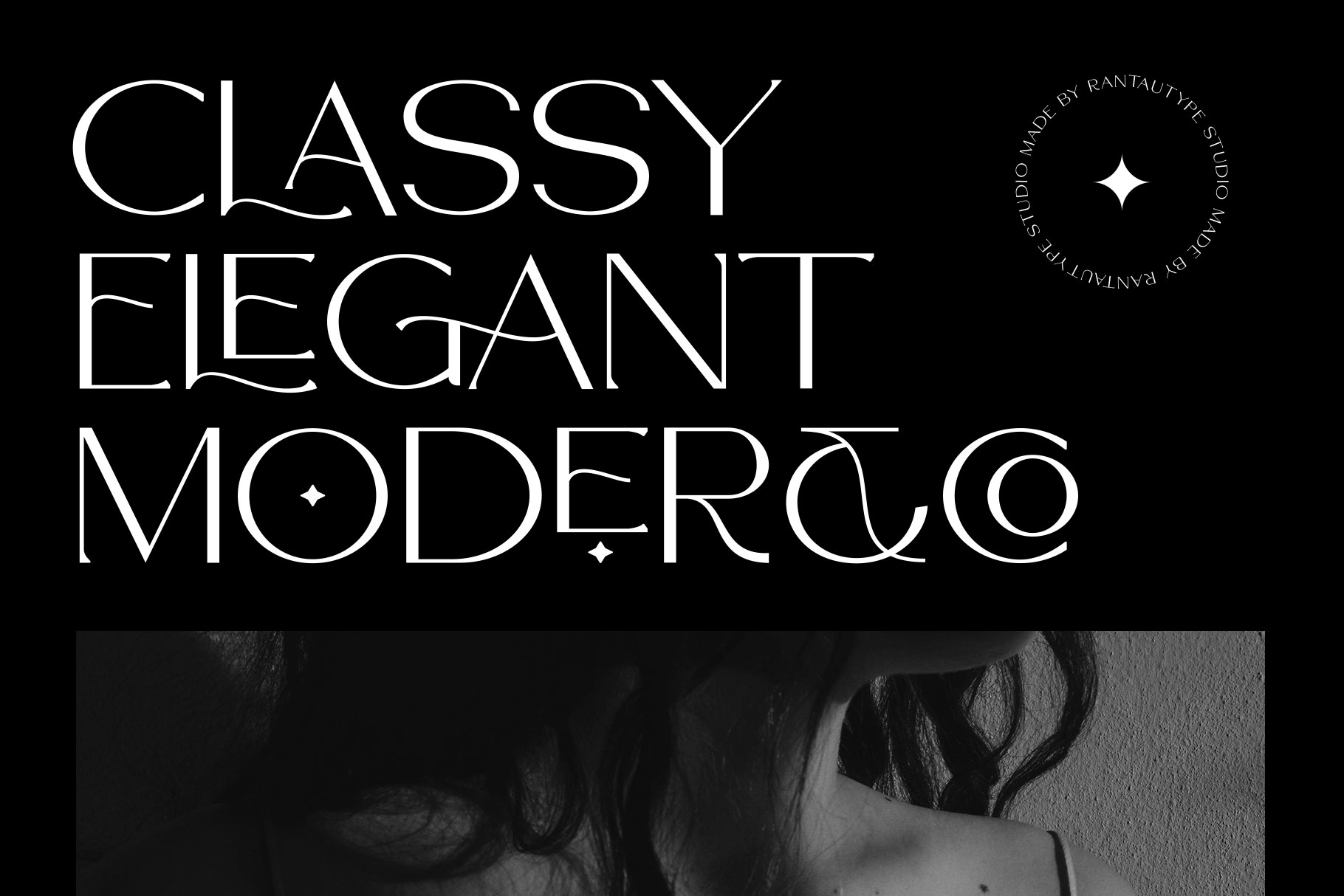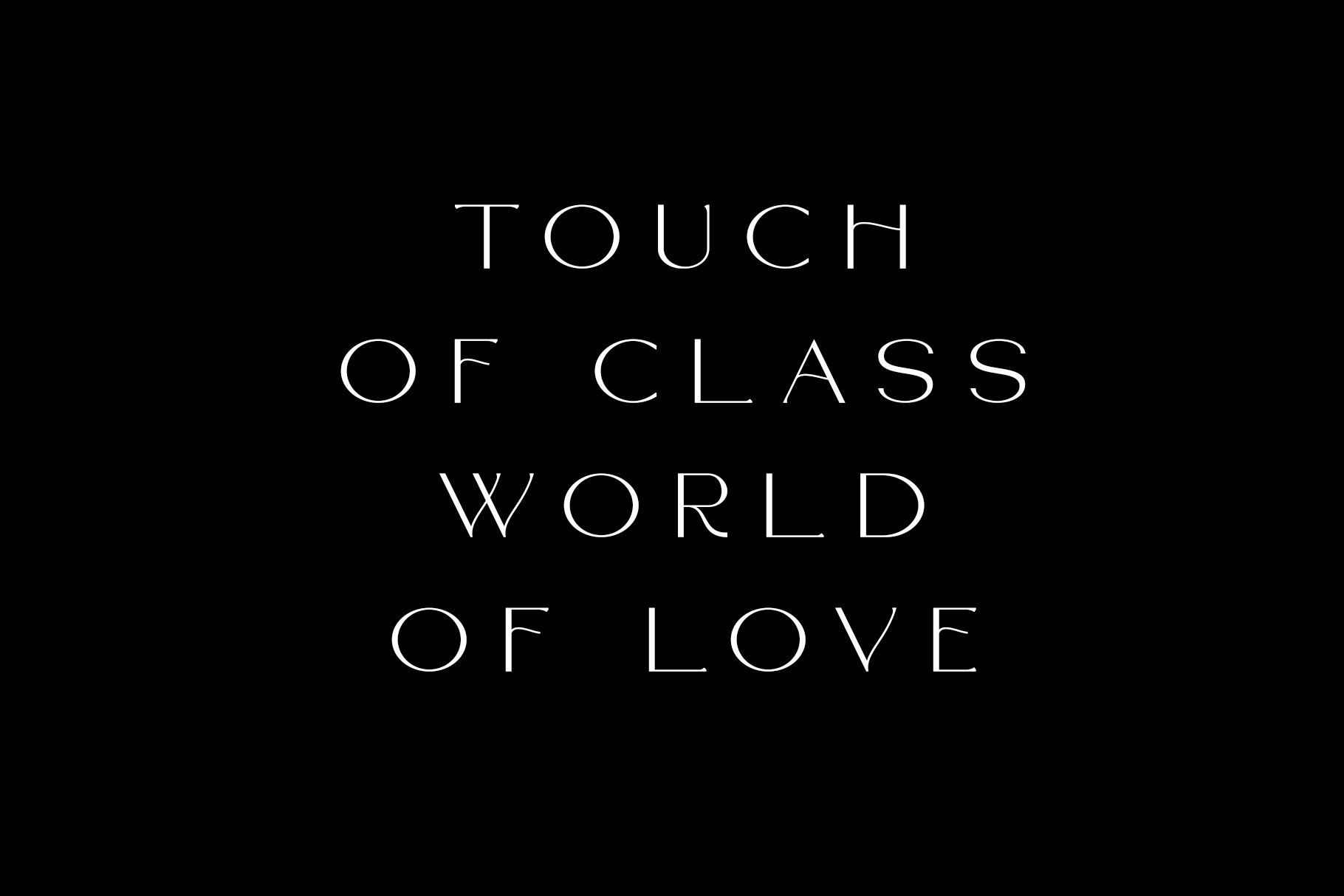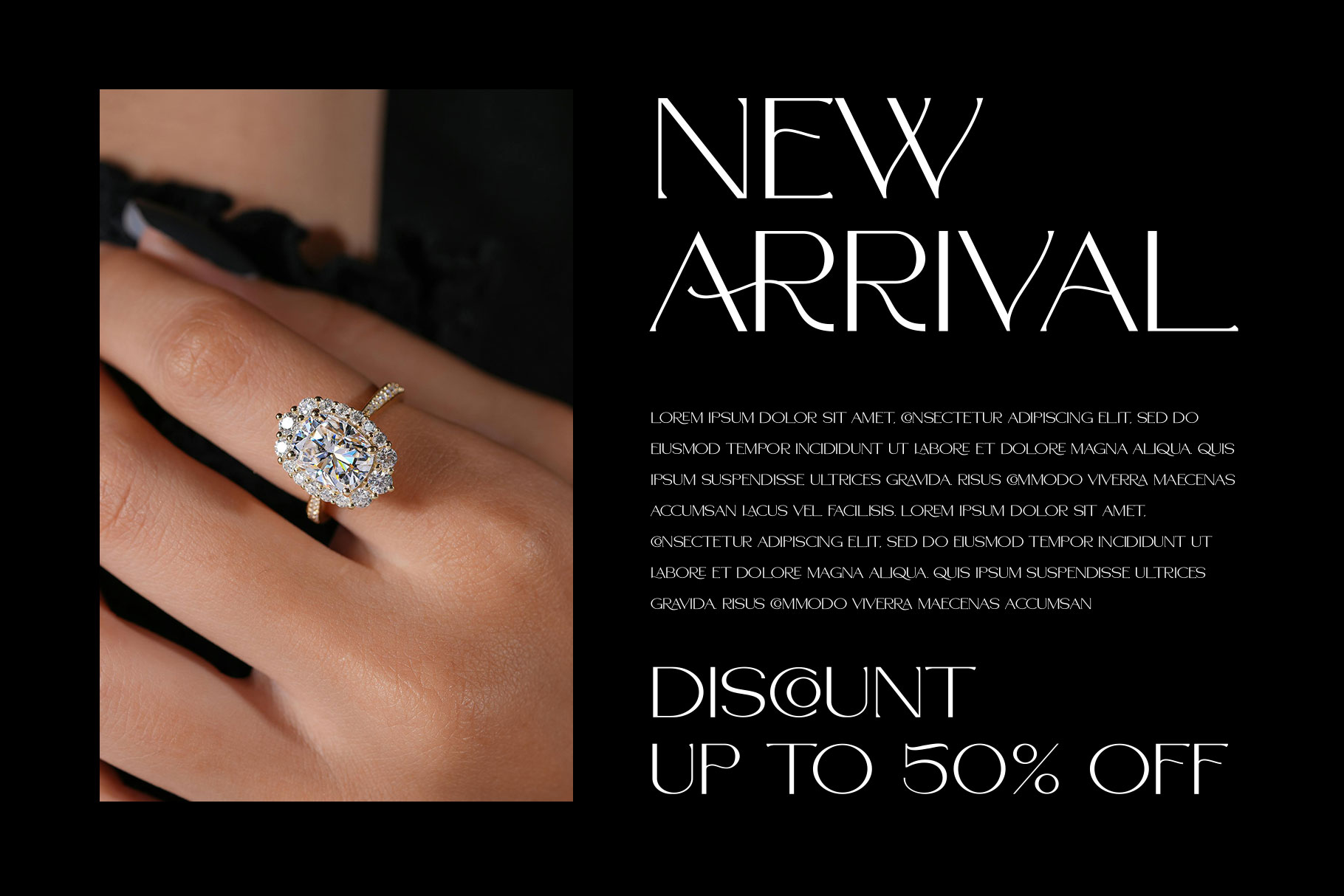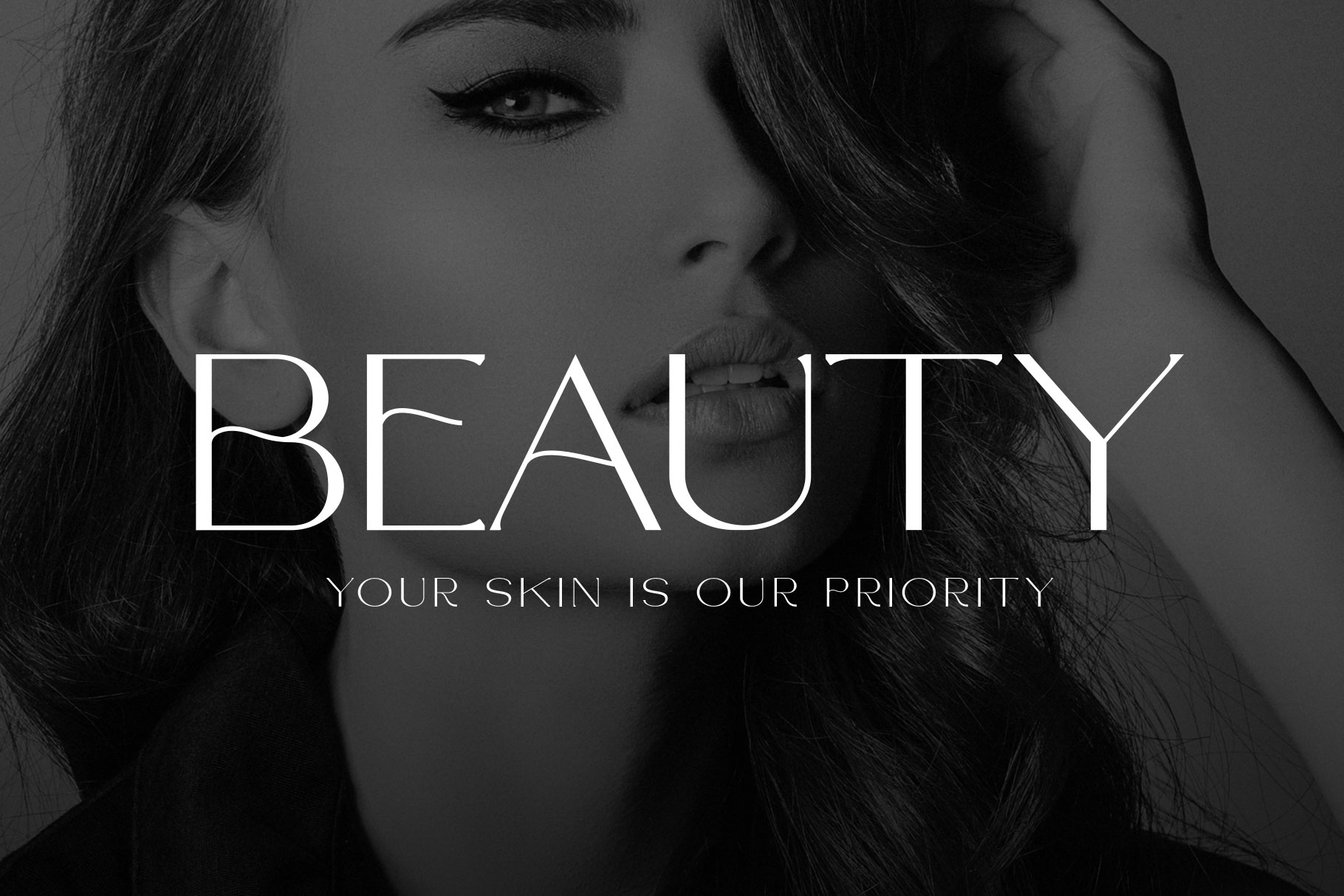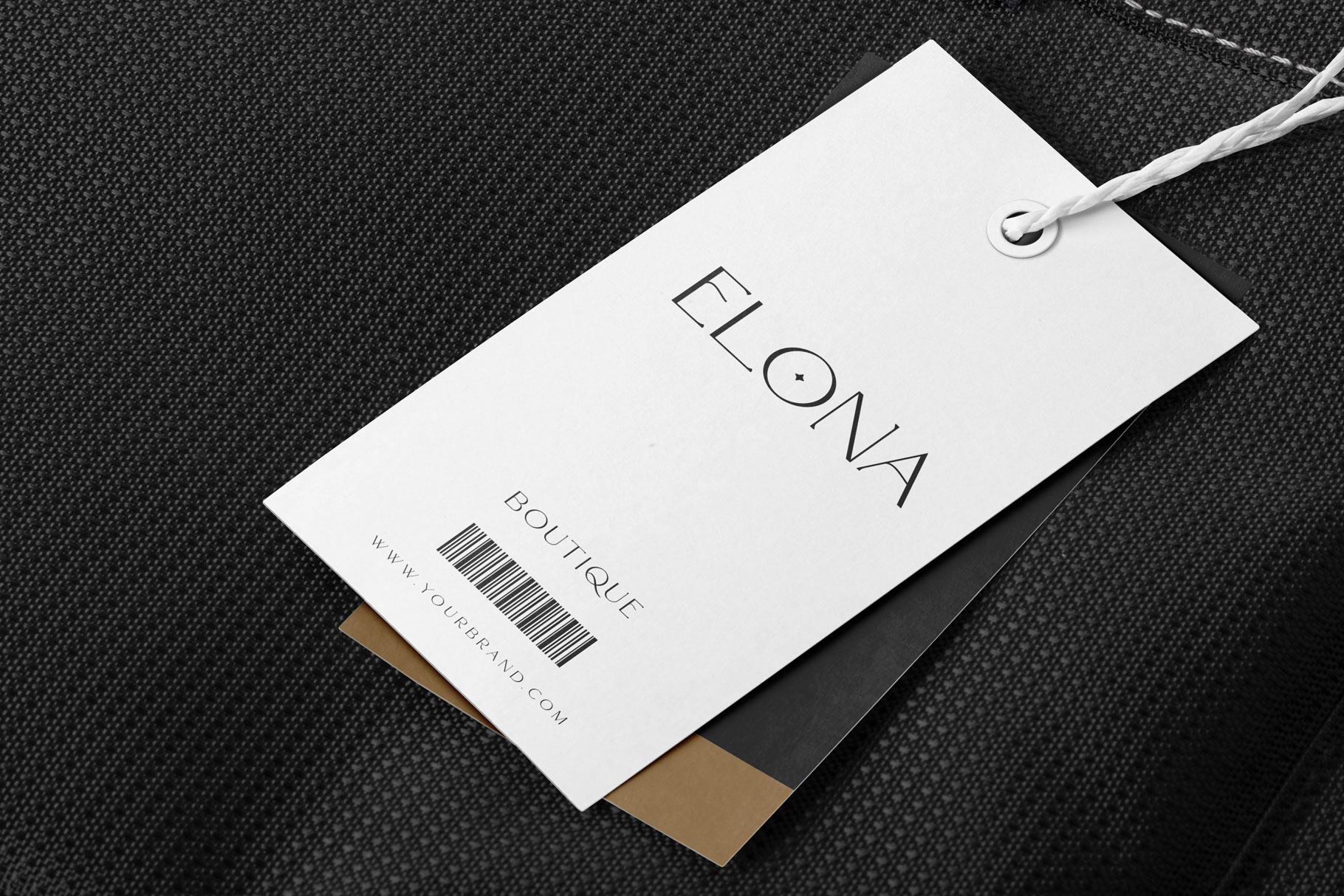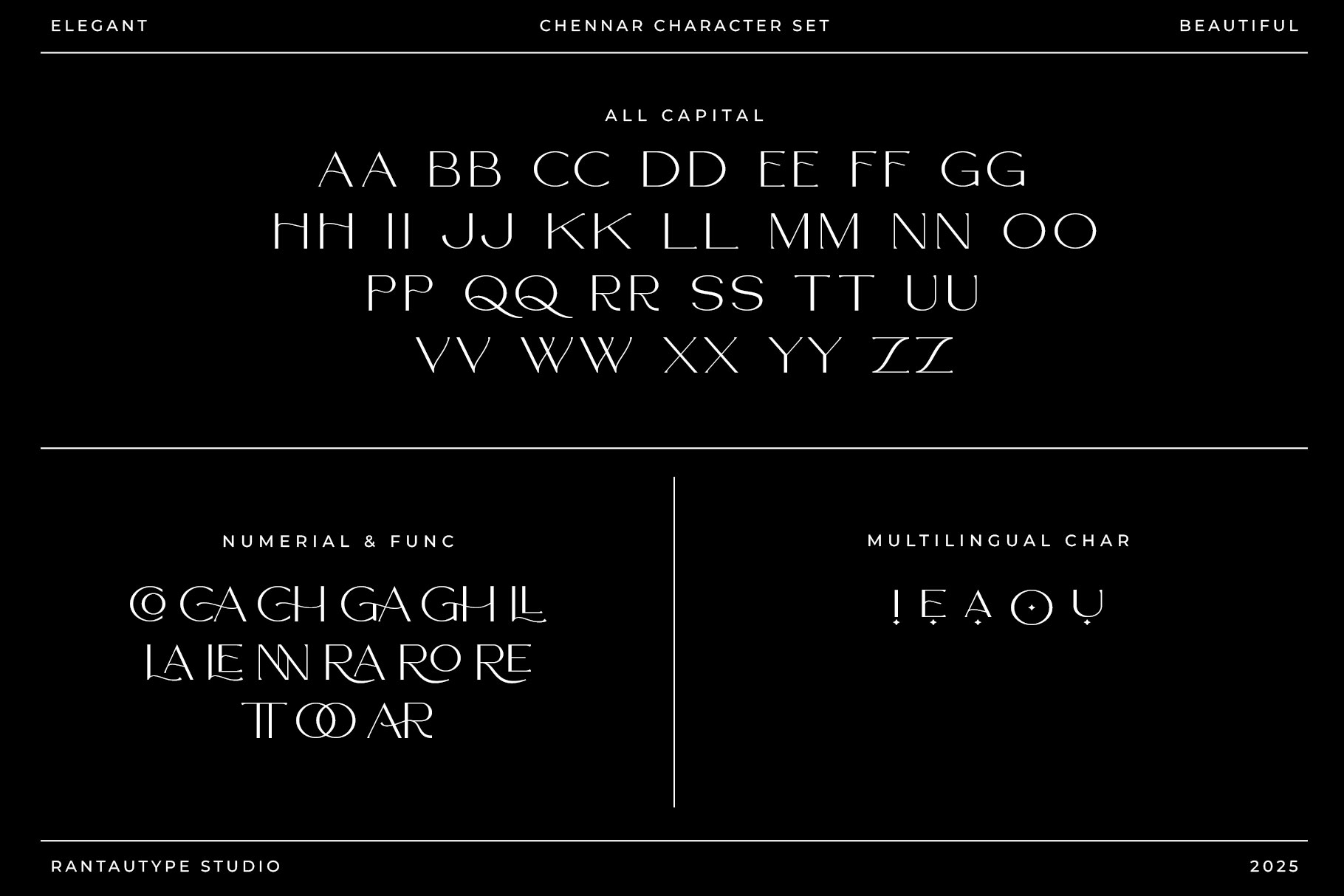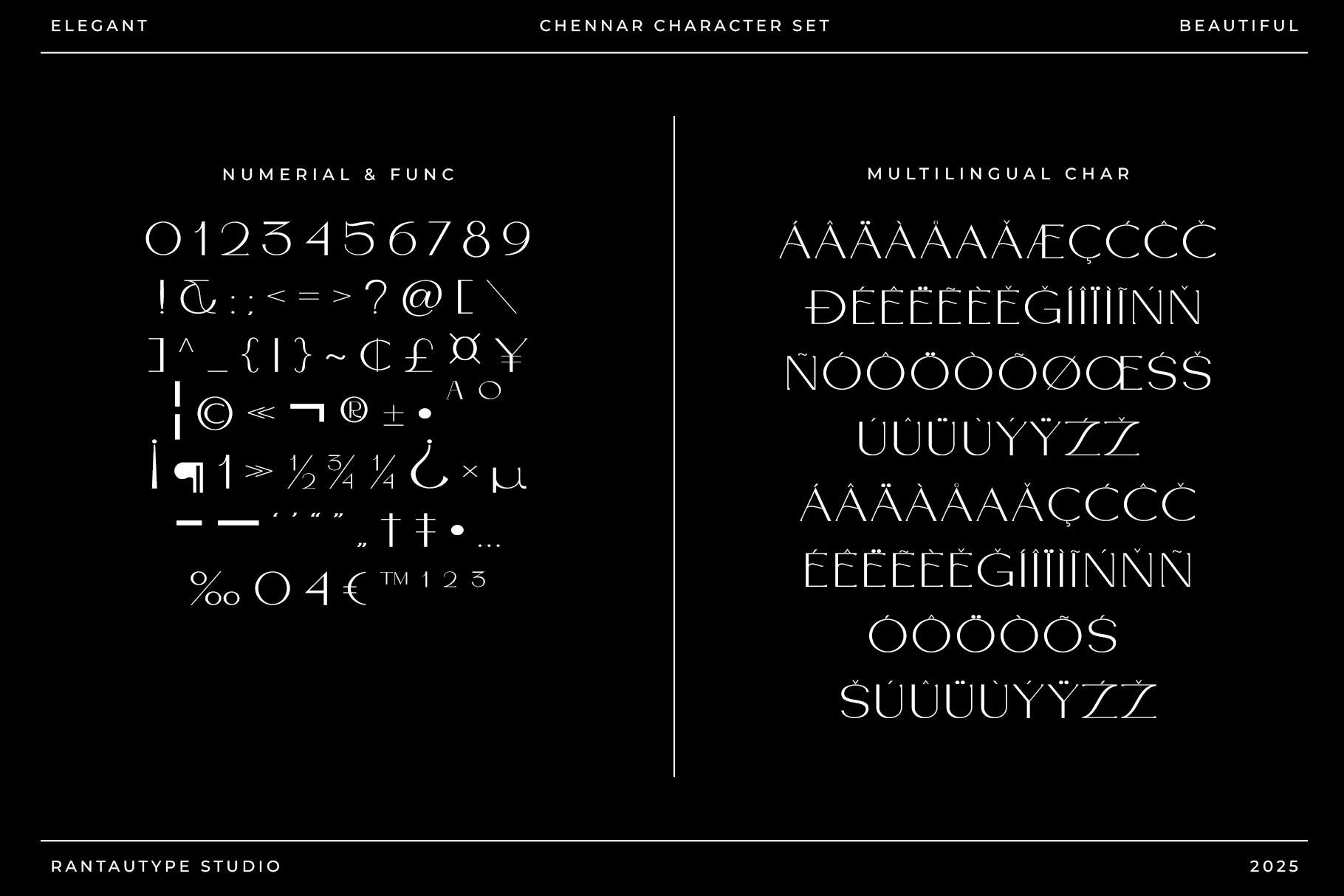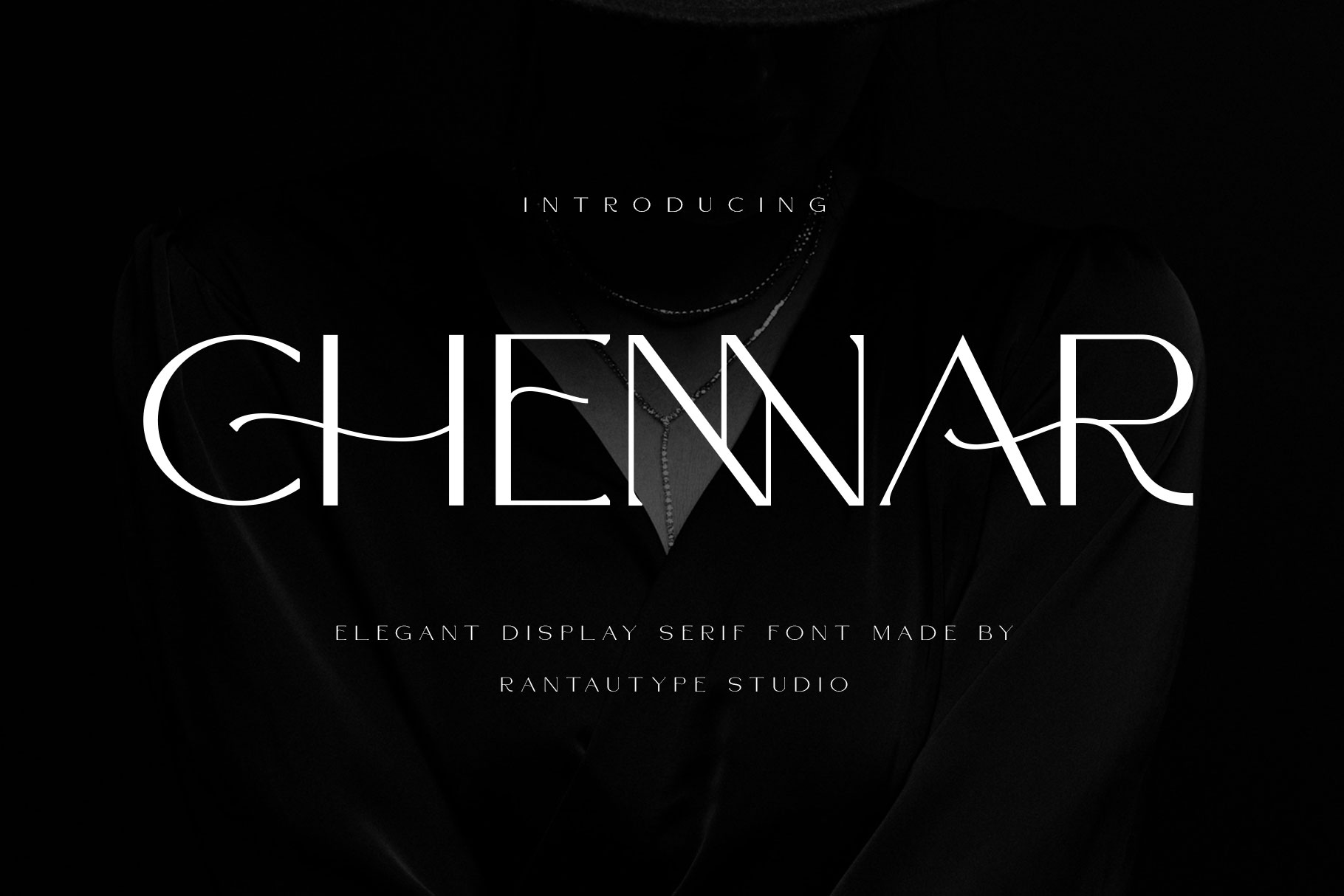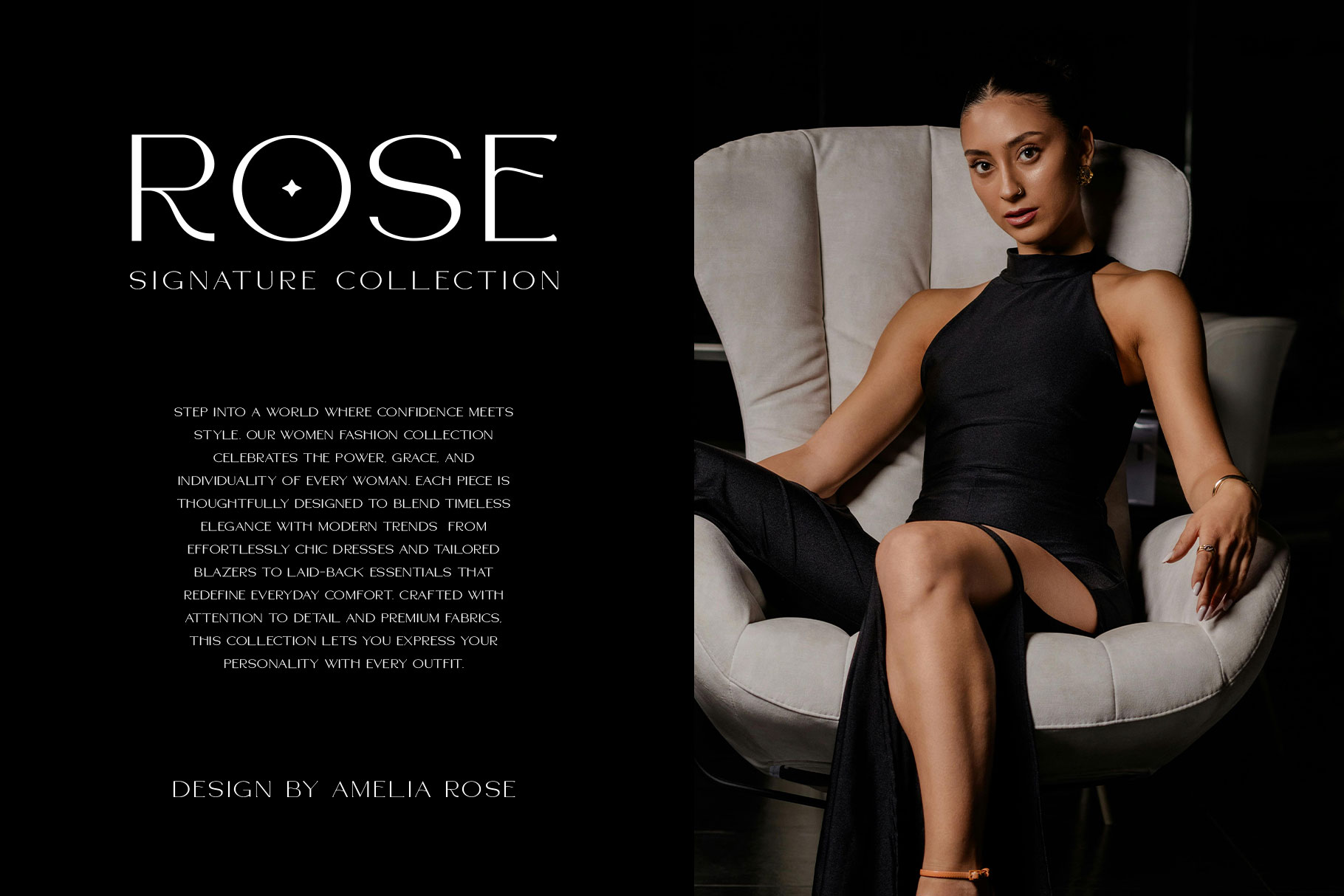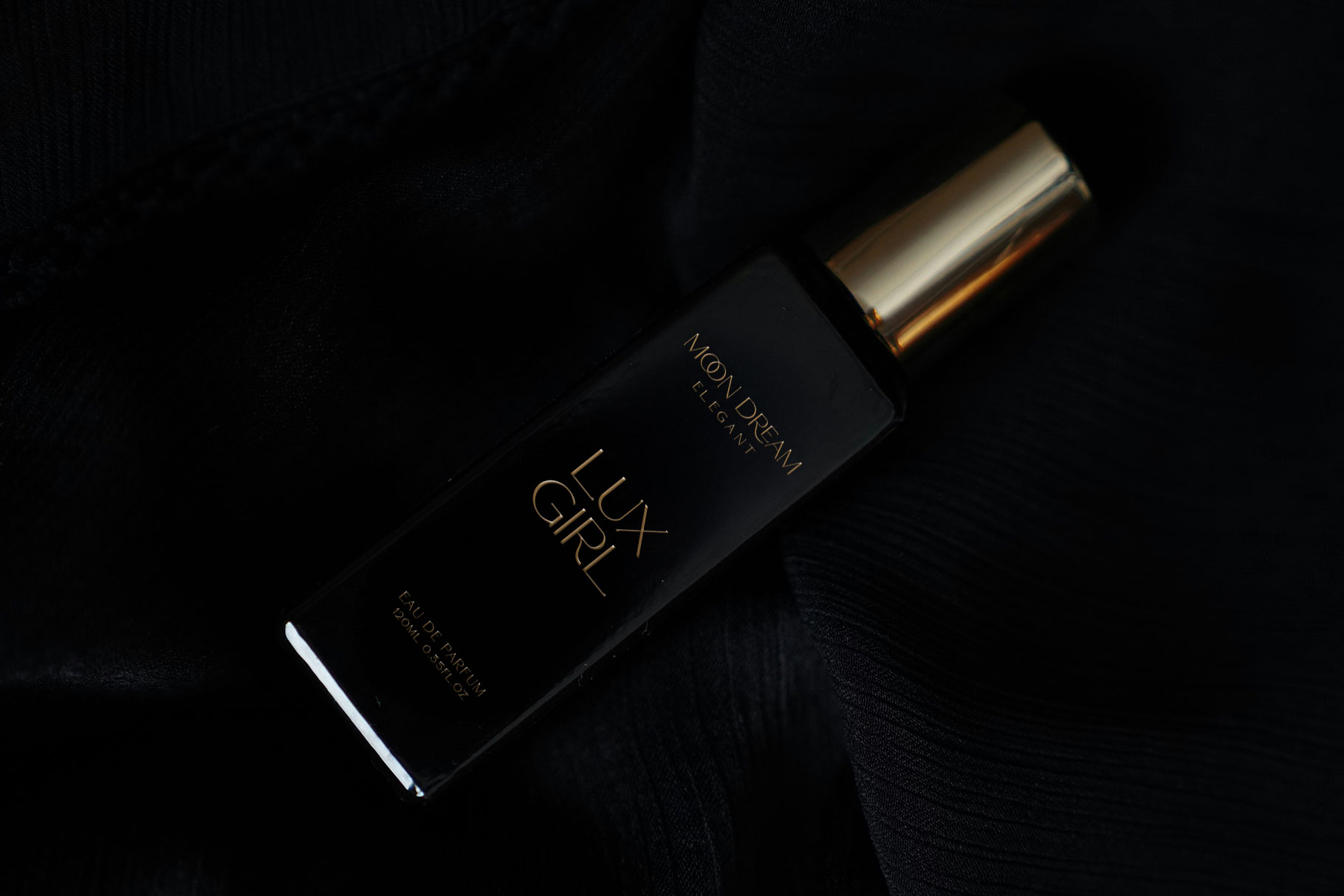
Chennar Elegant Display Serif Font
Chennar is elegant serif font made by rantautype studio. Chennar come with letterform carries a graceful balance between delicate curves and sharp serifs, creating a luxurious and professional impression. Chennar is a perfectly choice for any creative endeavor, creating, modern, lifestyle design such as logotype, title, cover, branding, invitations, wedding designs, display and magazine, social media posts, advertisements, printed quotes, product packaging, corporate brand, product designs, labels, photography, watermarks, special events and any other project with elegant touch.